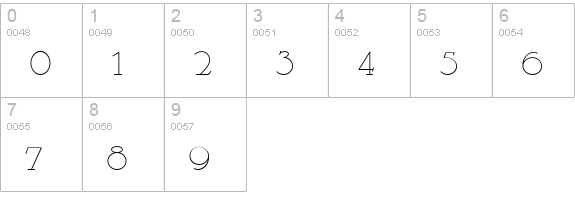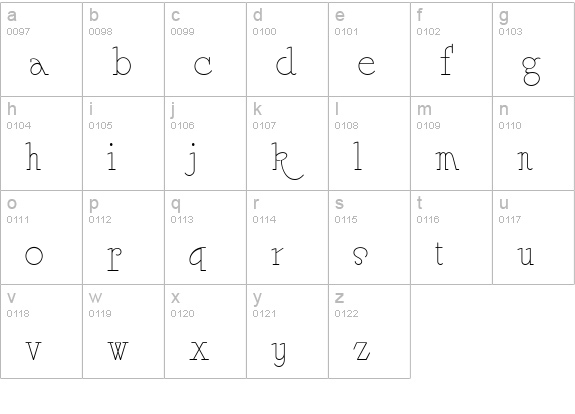
WHGSimpaticoNF is a stunning font that will effortlessly elevate any design project. With its elegant and modern aesthetic, this font is perfect for both personal and professional use. Its clean lines and smooth curves create an air of sophistication, while its subtle details add a touch of uniqueness. What sets WHGSimpaticoNF apart is not only its exceptional design, but also the fact that it is completely free. Yes, you read that right! This remarkable font is freely available to download at FontsMarket.com. Now, you can enhance your designs without worrying about breaking the bank. Whether you're creating a logo, designing a website, or working on a branding project, WHGSimpaticoNF will surely impress. Its versatility allows it to be used for various purposes, making it a go-to choice for designers of all levels of expertise. The readability of WHGSimpaticoNF is unparalleled, ensuring that your message is conveyed clearly and effectively. Its well-defined characters and optimal spacing guarantee a seamless reading experience. Whether your text is displayed in a large headline or a small paragraph, this font will maintain its legibility and visual appeal. Not only is WHGSimpaticoNF visually stunning, but it also offers an extensive character set. With a wide range of glyphs and special characters, you have the freedom to add a personal touch to your designs. From elegant ligatures to stylish alternates, this font provides endless possibilities for creative expression. Experience the beauty and versatility of WHGSimpaticoNF today by downloading it for free at FontsMarket.com. Join countless designers who have already fallen in love with this exceptional font. Elevate your designs and make a statement with WHGSimpaticoNF – the font that combines elegance, modernity, and accessibility all in one package.